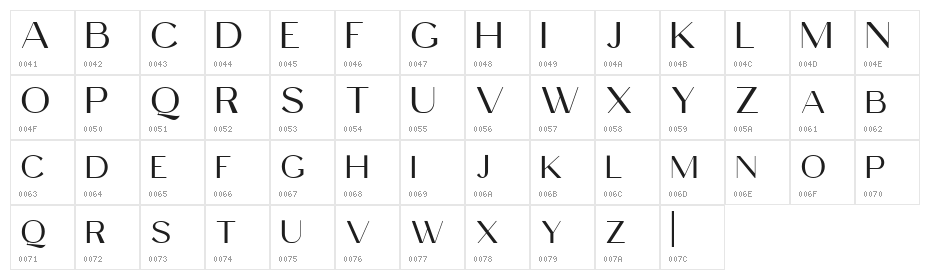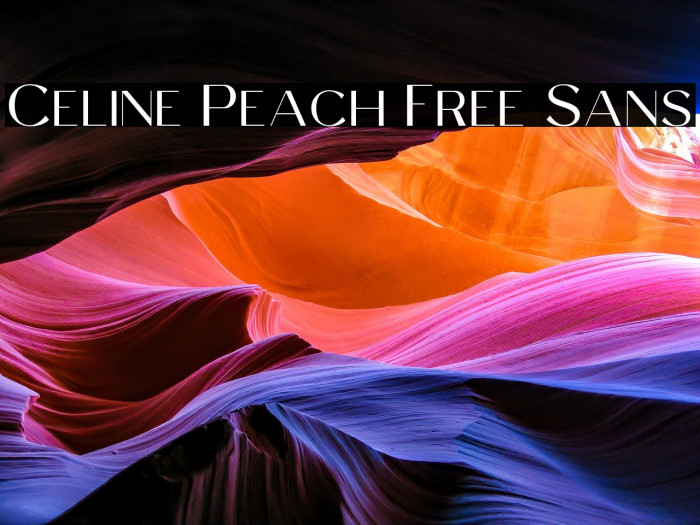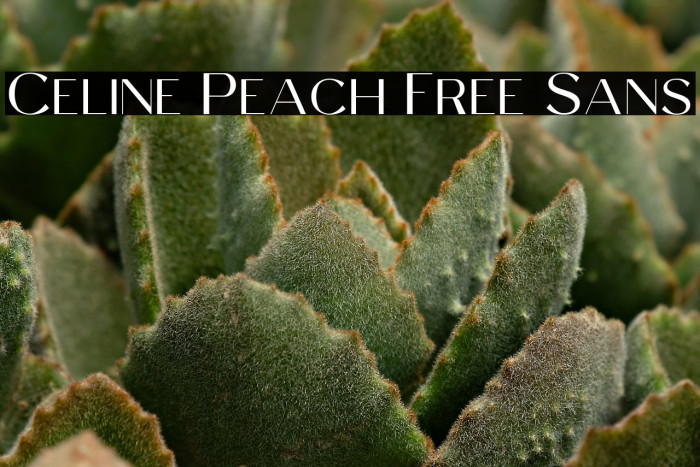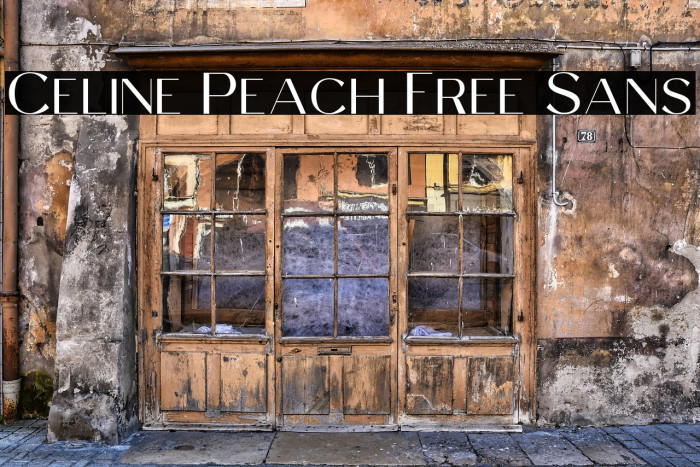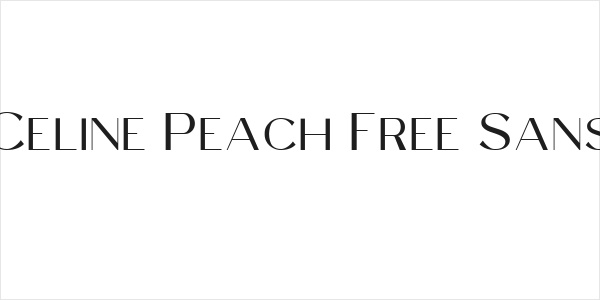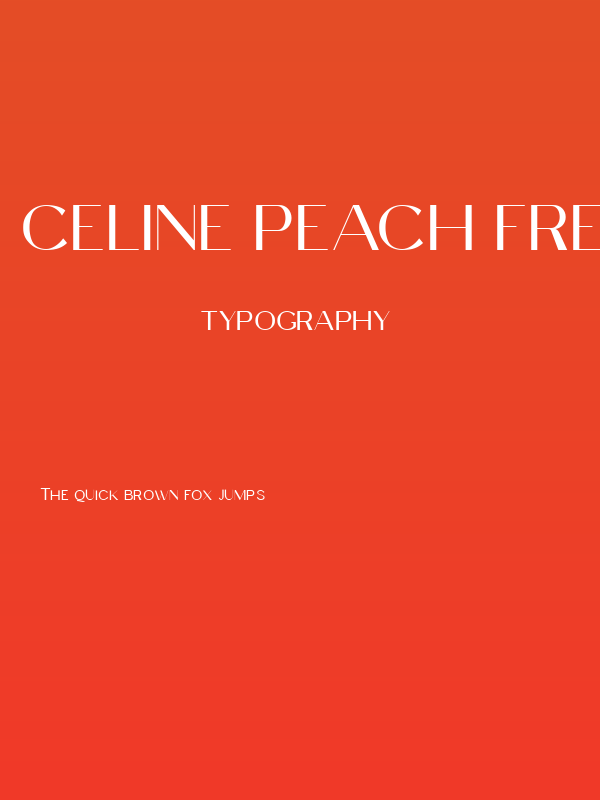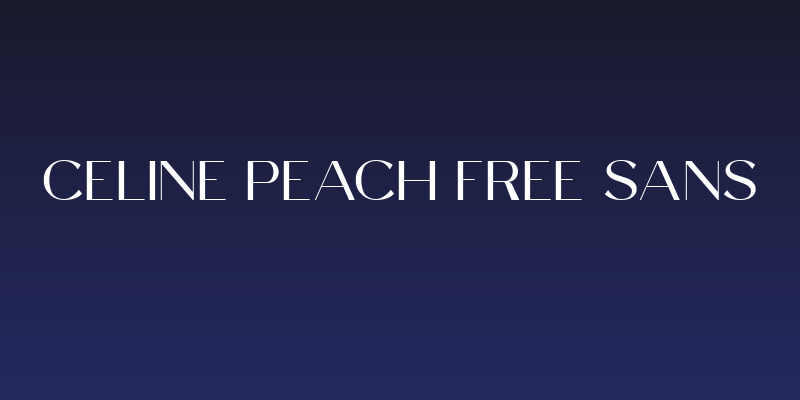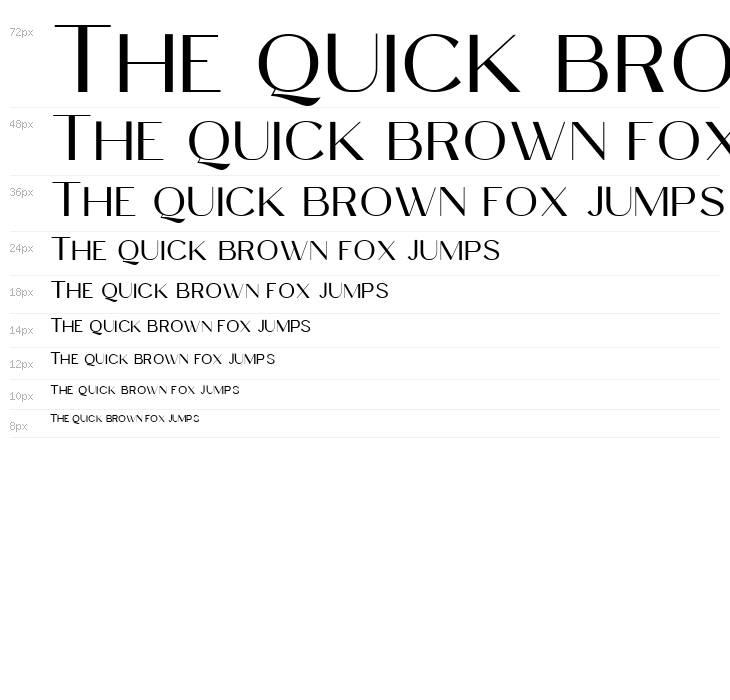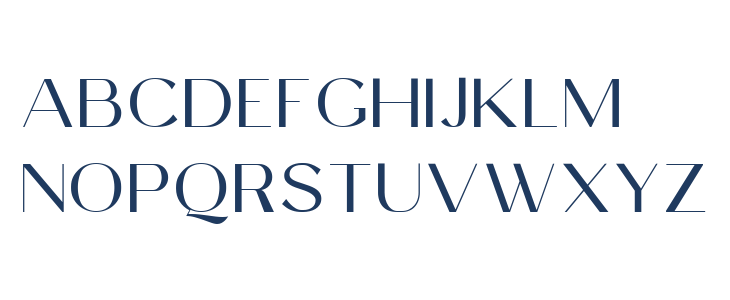
Celine Peach Free Sans Font
Celine Peach Free Sans Description
This font features a modern and elegant sans-serif style with clean lines and a sophisticated appearance. The uppercase letters are distinct with a slight geometric influence, providing a contemporary feel. The strokes are consistent, offering a balanced and harmonious look. The font maintains a professional and sleek aesthetic, making it suitable for various design applications. Its simplicity and clarity make it highly readable, while the subtle details add a touch of uniqueness.